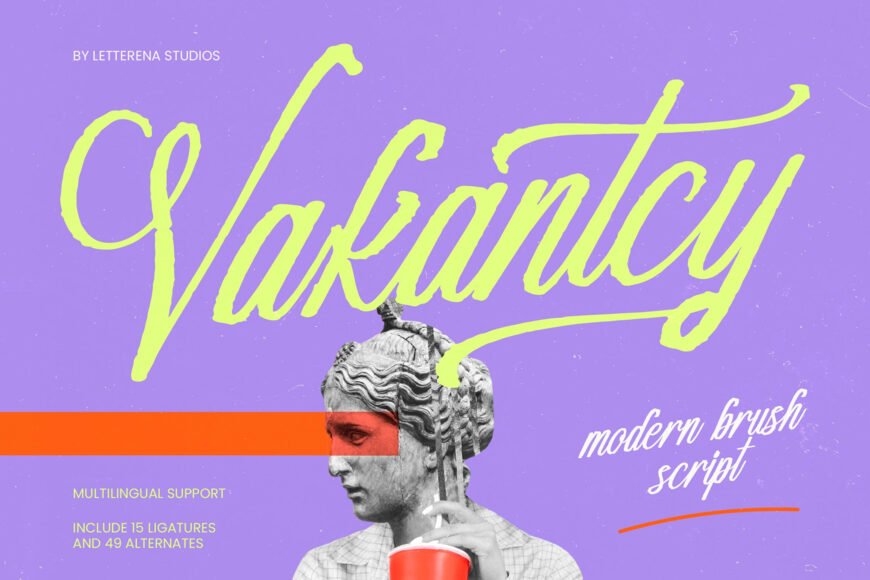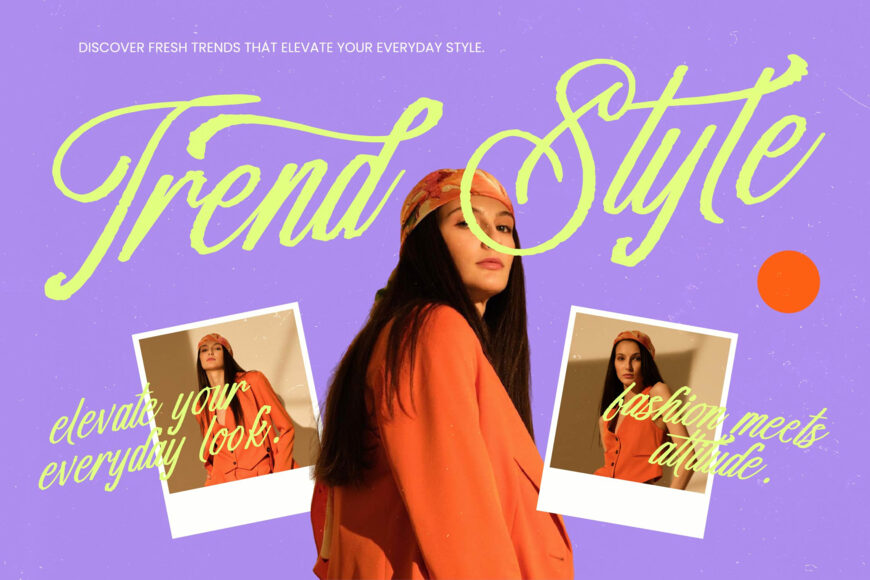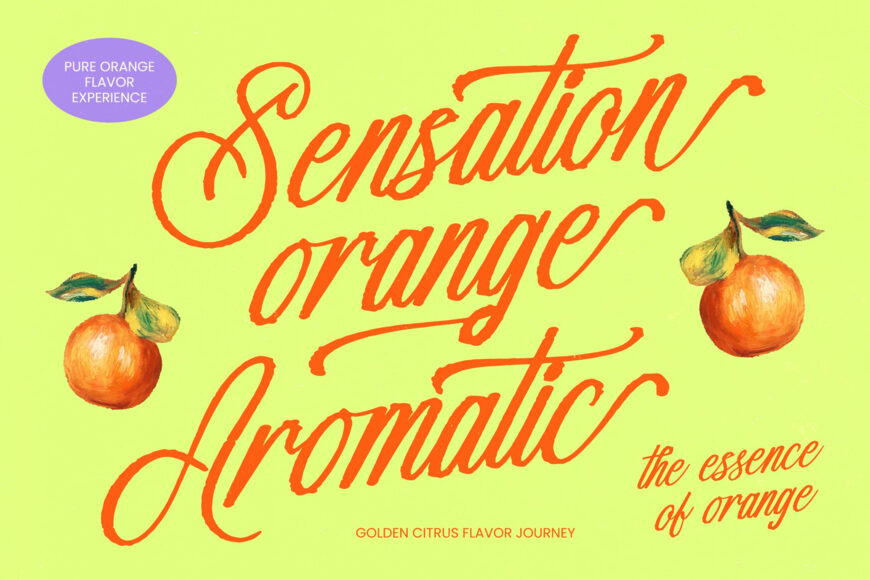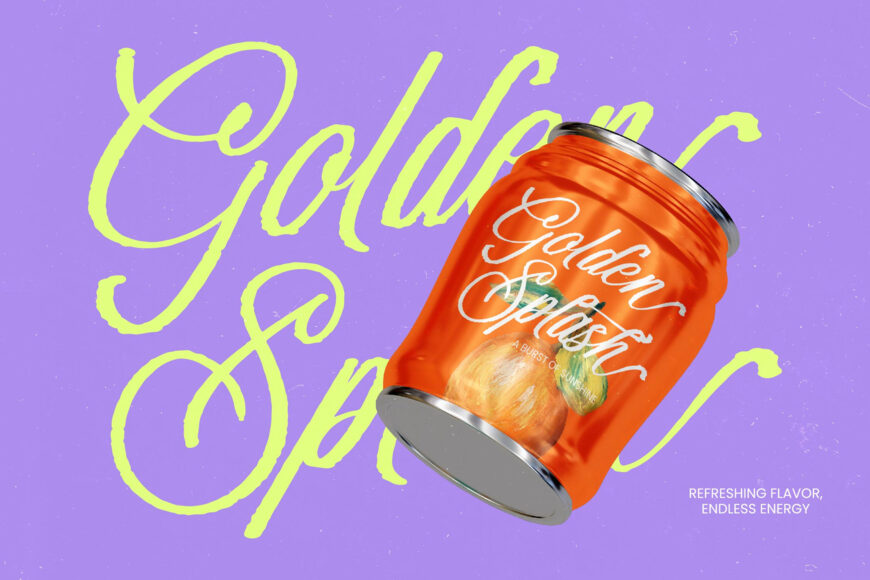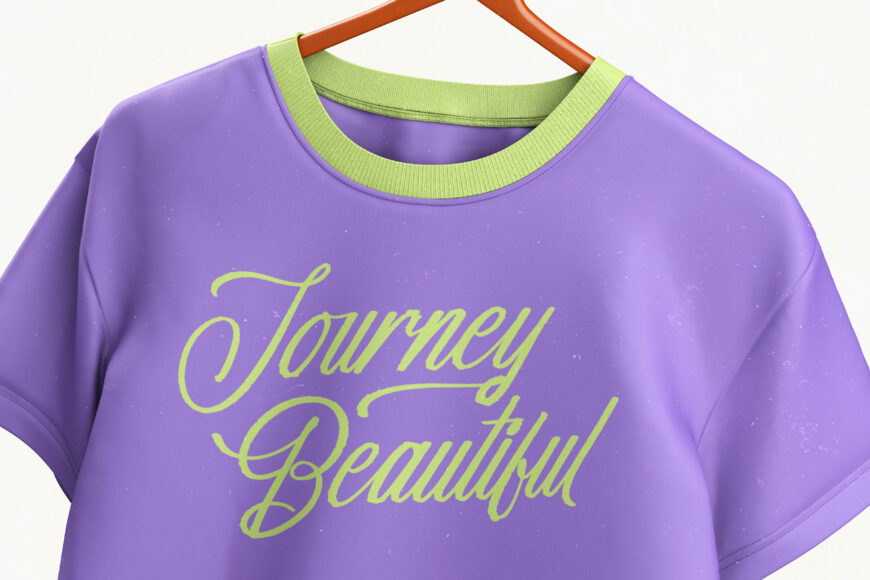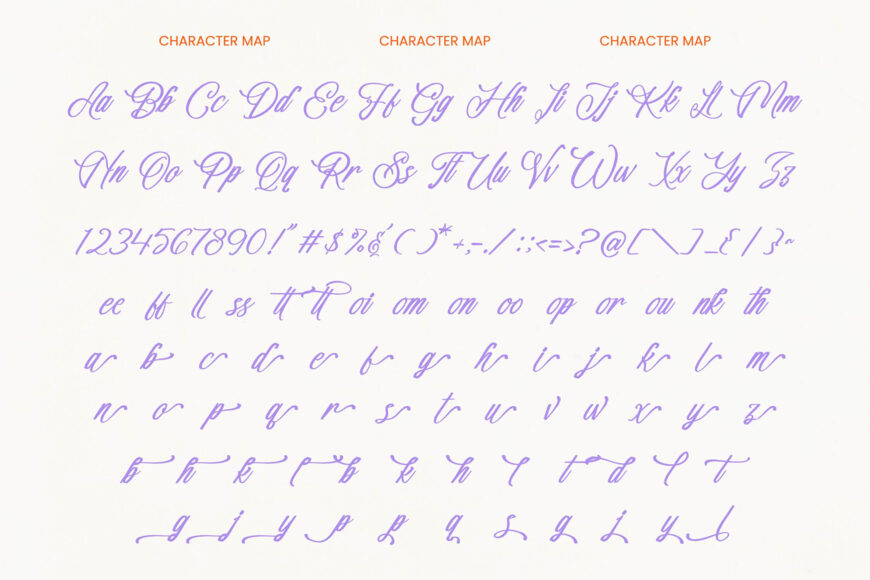
Bring contemporary elegance to life with Vakantcy, a modern brush script inspired by the expressive energy of hand-painted lettering. Its fluid strokes and organic rhythm add an authentic, handcrafted touch to any design.
With multilingual support, 15 ligatures, and 49 stylistic alternates, it offers flexibility for global and custom projects. Ideal for luxury branding, premium packaging, editorial layouts, logos, social media graphics, and product labels, Vakantcy delivers a refined, confident visual identity with bold artistic character.